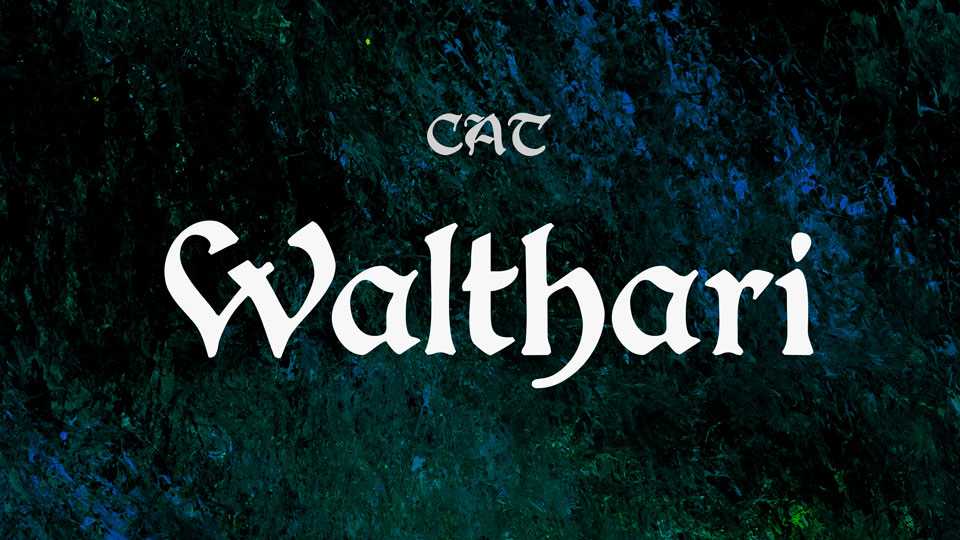
Download Walthari font, a Jugendstil rotunda, combining its blackletter roots with a strong Roman influence in an effort to achieve a broader appeal than the traditional forms.